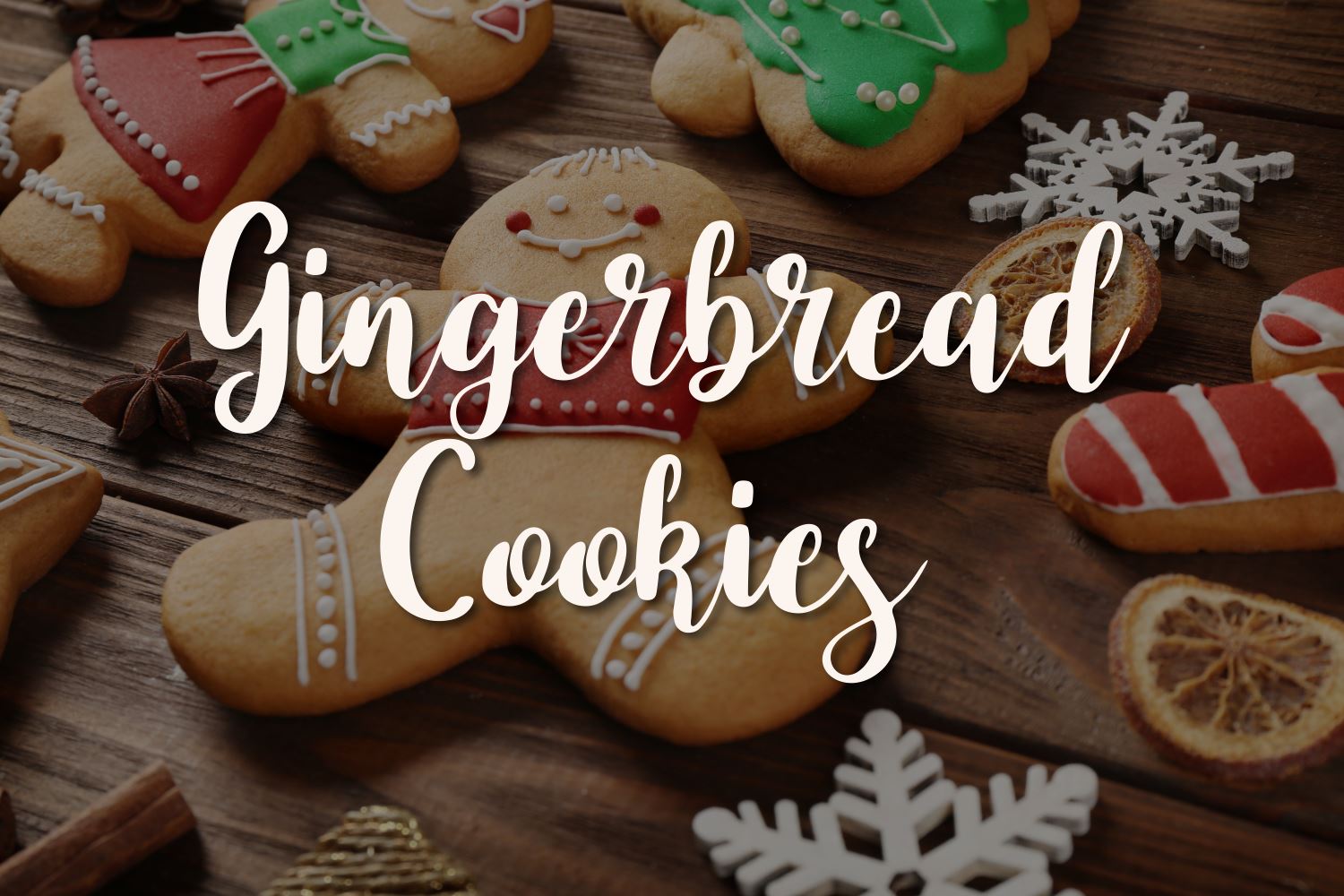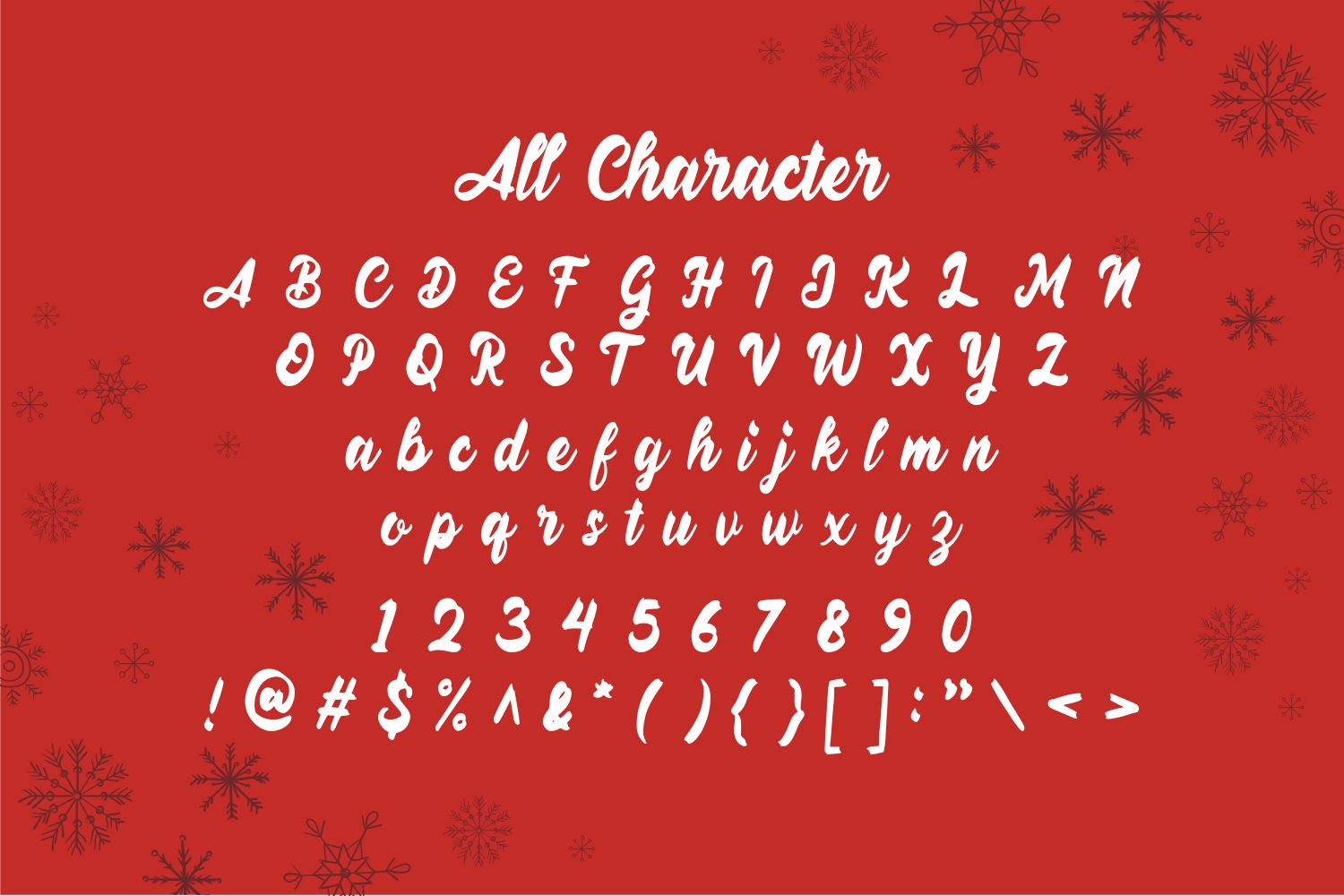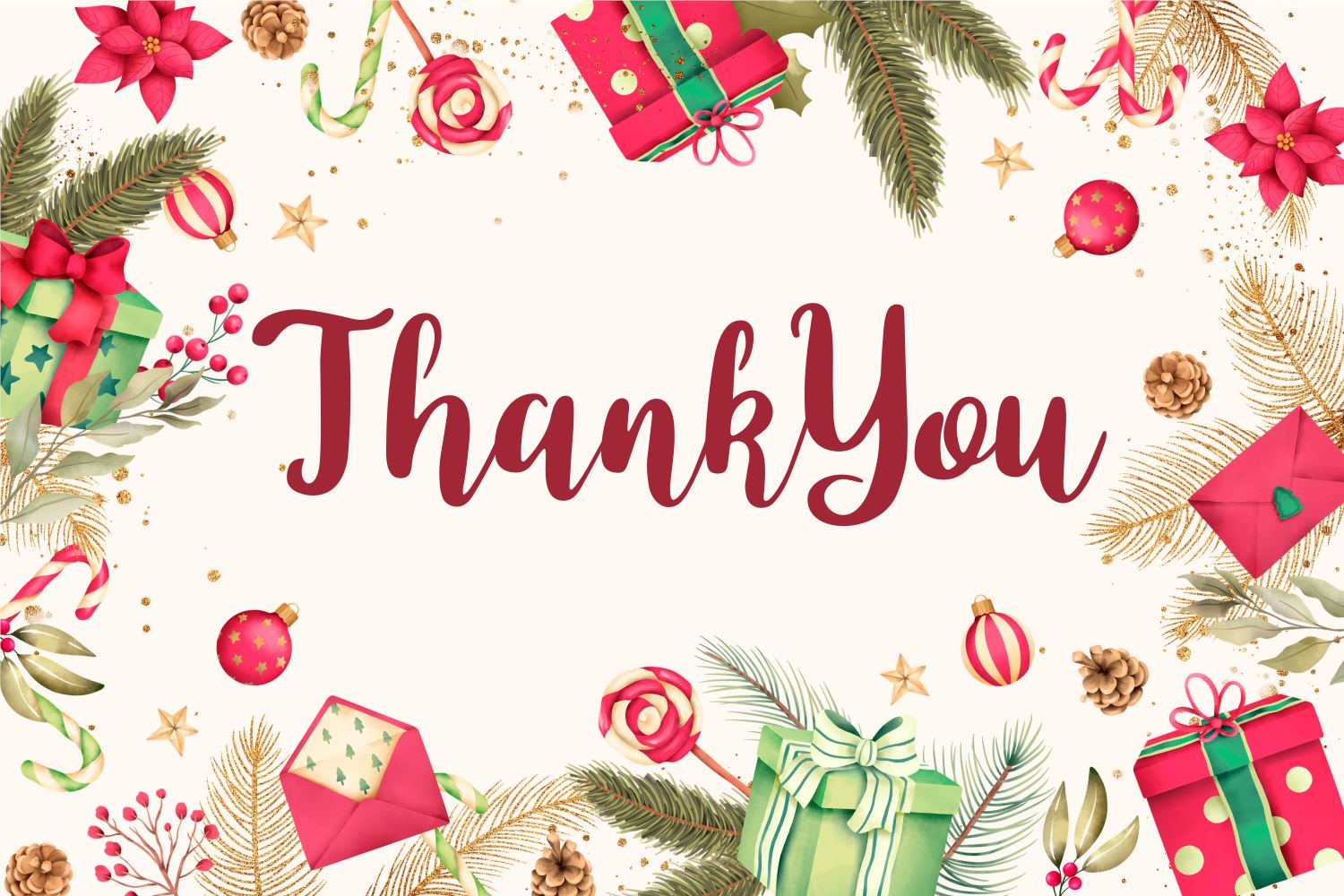
About Betalisa
Introducing Betalisa Font by Forberas Club Betalisa is a Modern Handwritten Font. Betalisa is perfect for book cover, product packaging, branding project, megazine, social media, christmas party fonts, or just used to express words above the background. This font includes TTF and OTF, This font also multilingual support.